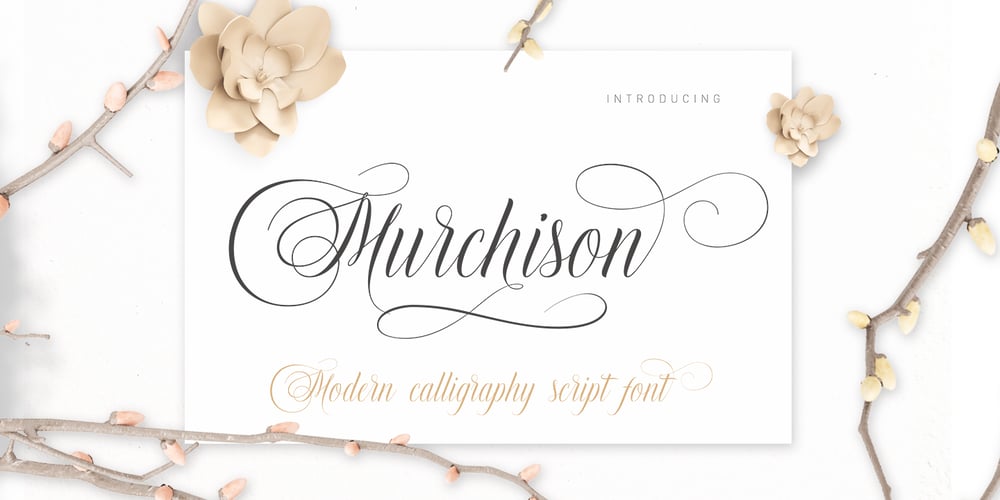
Murchison Script
Murchison Script font
Murchison Script Font Family was designed by Yur Lis and published by Stripes Studio. Murchison Script contains 1 styles and family package options. Murchison Script is a detailed script that contains a complete set of letters lower and uppercase letters, assorted punctuation, numbers, and multilingual support. It also contains several ligatures and alternate glyphs. To enable the OpenType Stylistic alternates, you need a program that supports OpenType features such as Adobe Illustrator CS, Adobe Indesign & CorelDraw X6-X7, Microsoft Word 2010 or later versions. And there are additional ways to access alternates/swashes, using Character Map (Windows), Nexus Font (Windows), Font Book (Mac) or a software program such as PopChar (for Windows and Mac). How to access all alternative characters using Adobe Illustrator: https://www.youtube.com/watch?v=XzwjMkbB-wQ How to access all alternative characters, using Windows Character Map with Photoshop: https://www.youtube.com/watch?v=Go9vacoYmBw This Font has given PUA unicode Thank you for your purchase!